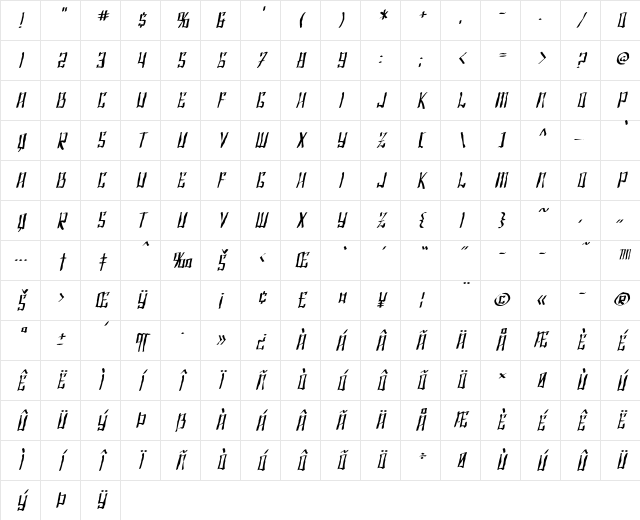
SF Shai Fontai Distressed Oblique
Designer: ShyFonts Type Foundry
Design Context for SF Shai Fontai Distressed
SF Shai Fontai Distressed embraces imperfection - its rough, textured character adds raw authenticity to designs that want to feel lived-in and unconventional. The slanted form adds forward momentum and visual energy.
Pro Tip: Use SF Shai Fontai Distressed at larger sizes where the texture and irregularity of each letterform can be clearly seen - it loses its character at small sizes.